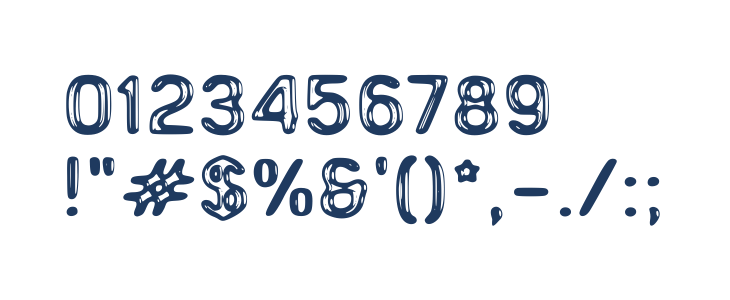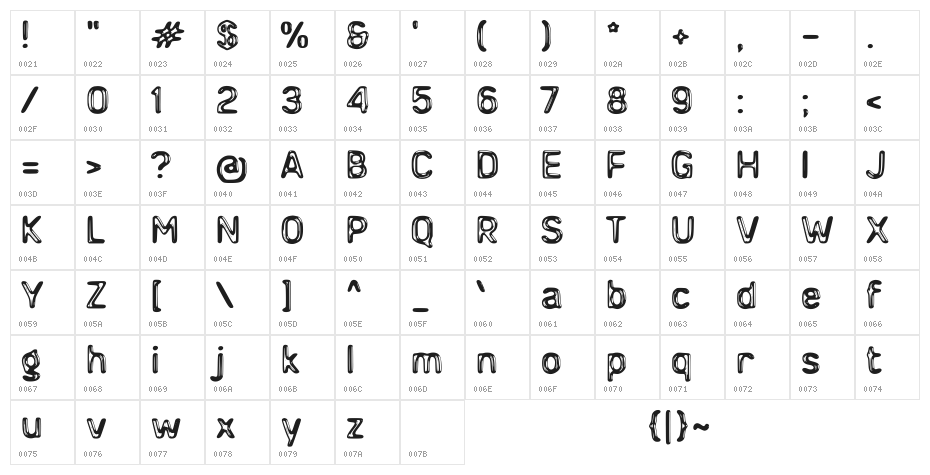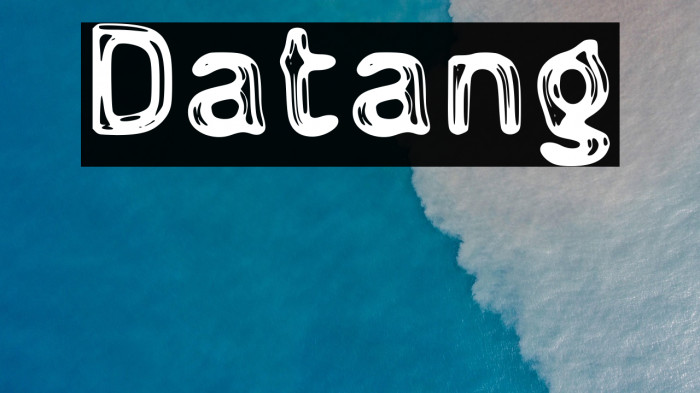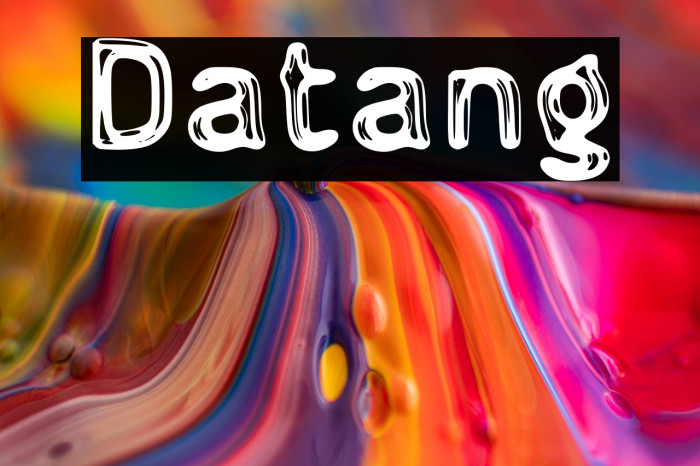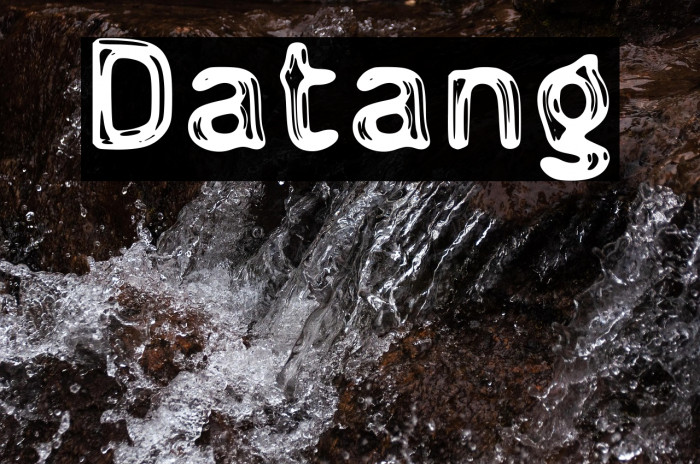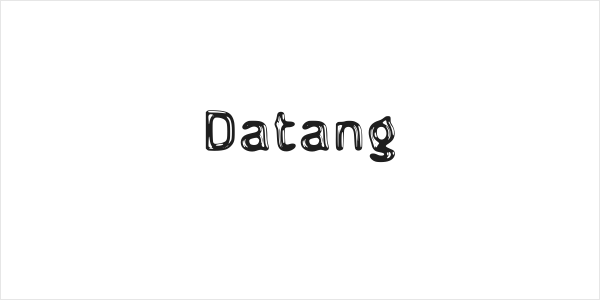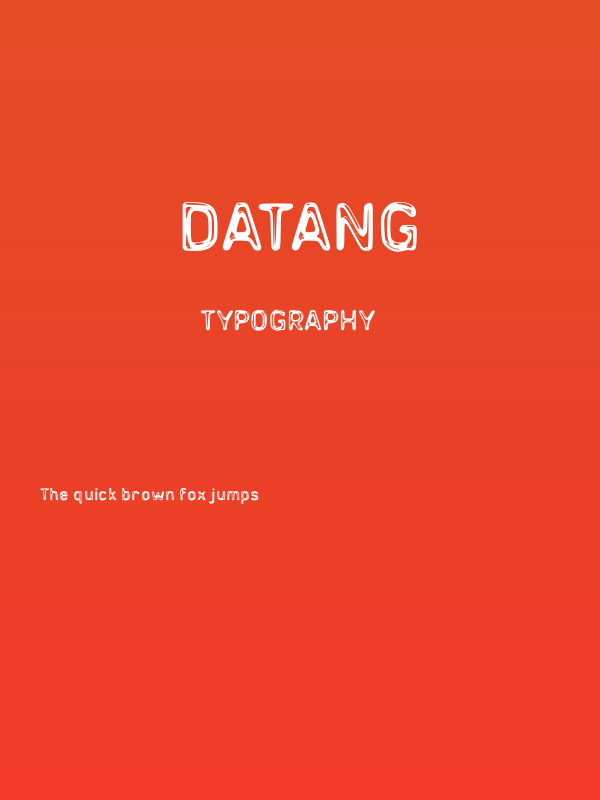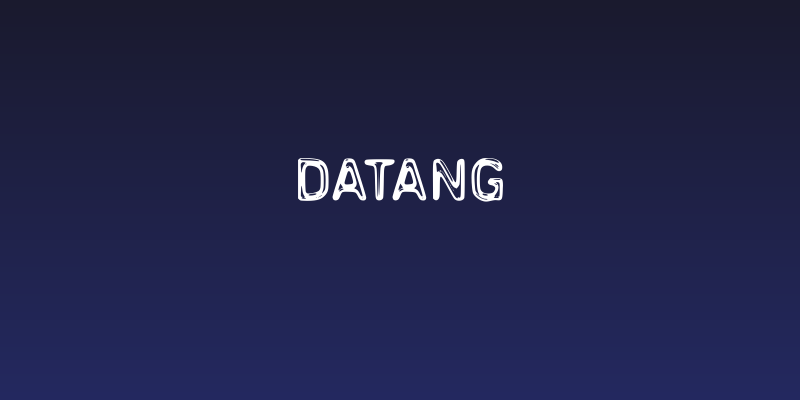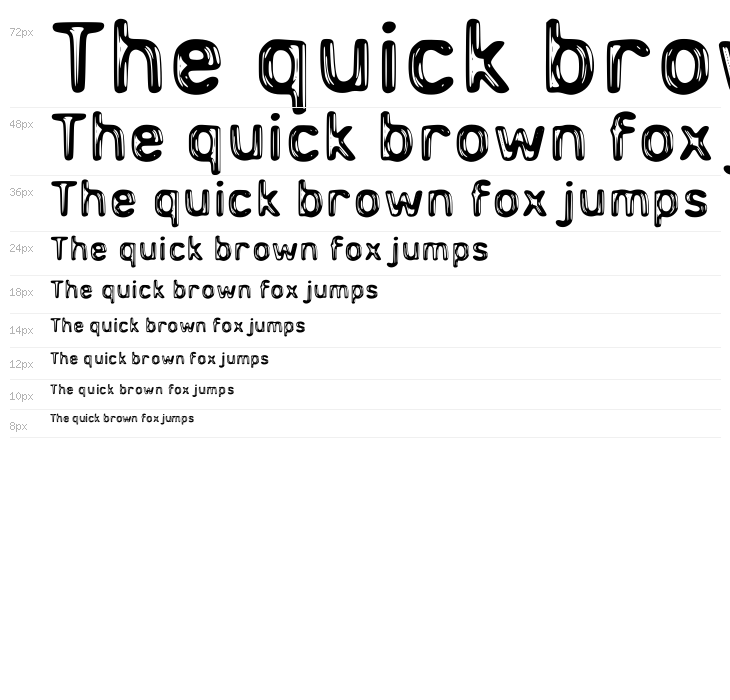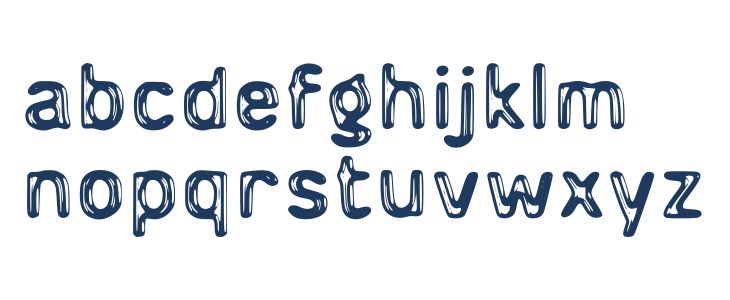
Datang Font
Datang Description
This font features a bold, playful design with a hand-drawn aesthetic. Each character is outlined with a thick, uneven stroke, giving it a dynamic and energetic feel. The letters have a slightly irregular shape, adding to the whimsical and informal style. The font includes both uppercase and lowercase letters, numbers, and a variety of special characters. Its unique appearance makes it stand out, ideal for projects that require a fun and creative touch. The overall look is reminiscent of doodles or sketches, making it perfect for artistic and casual designs.
| Overall Style | Playful, Artistic |
| Proposed Projects | Great for children's book covers, playful branding, creative posters, and artistic invitations. |